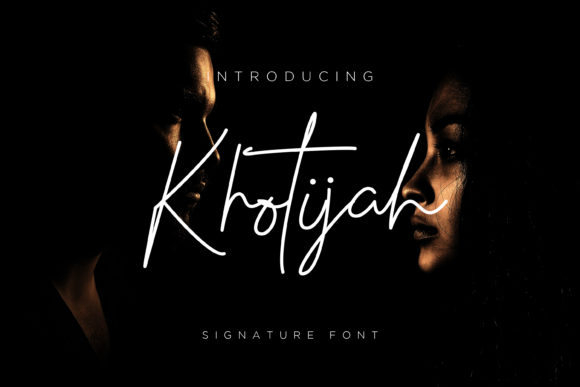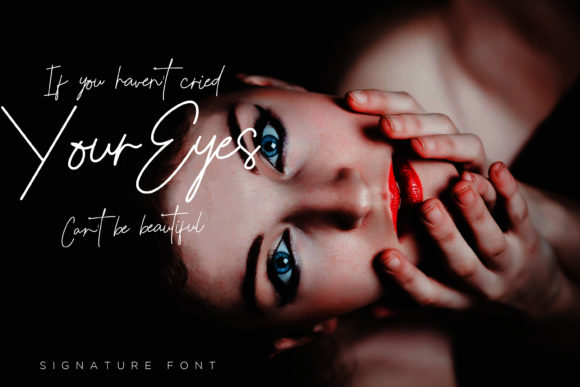
Khotijah Font
About Khotijah Font
Khotijah is a gorgeously light and authentic script with a unique twist. Use it to make any design project stand out.